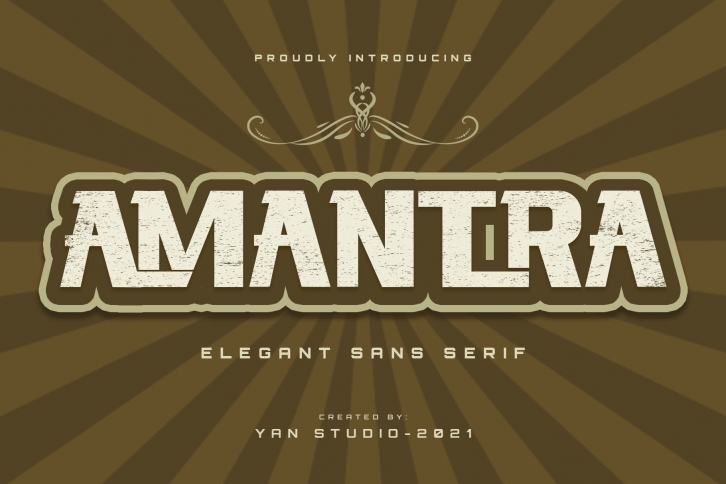
Amantra is a bold and thick lettered display font. It can easily be matched to an incredibly large set of projects, so add it to your creative ideas and notice how it makes them stand out!